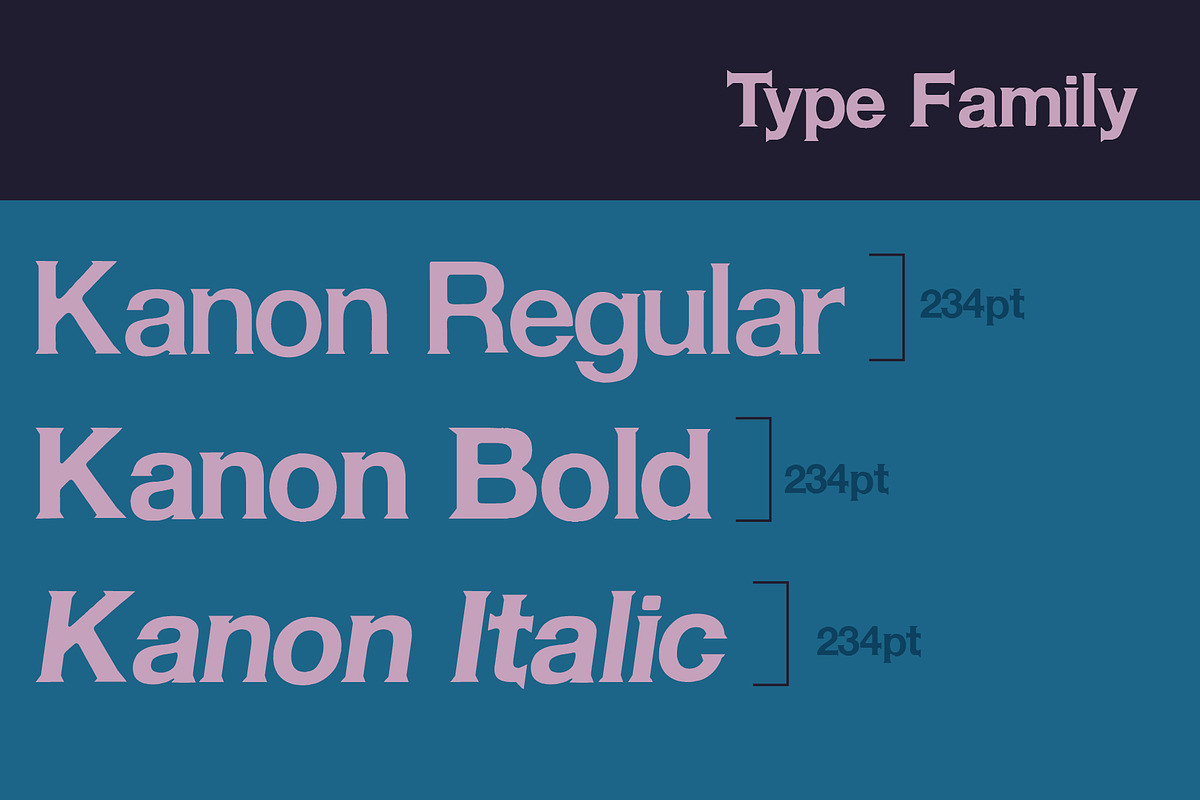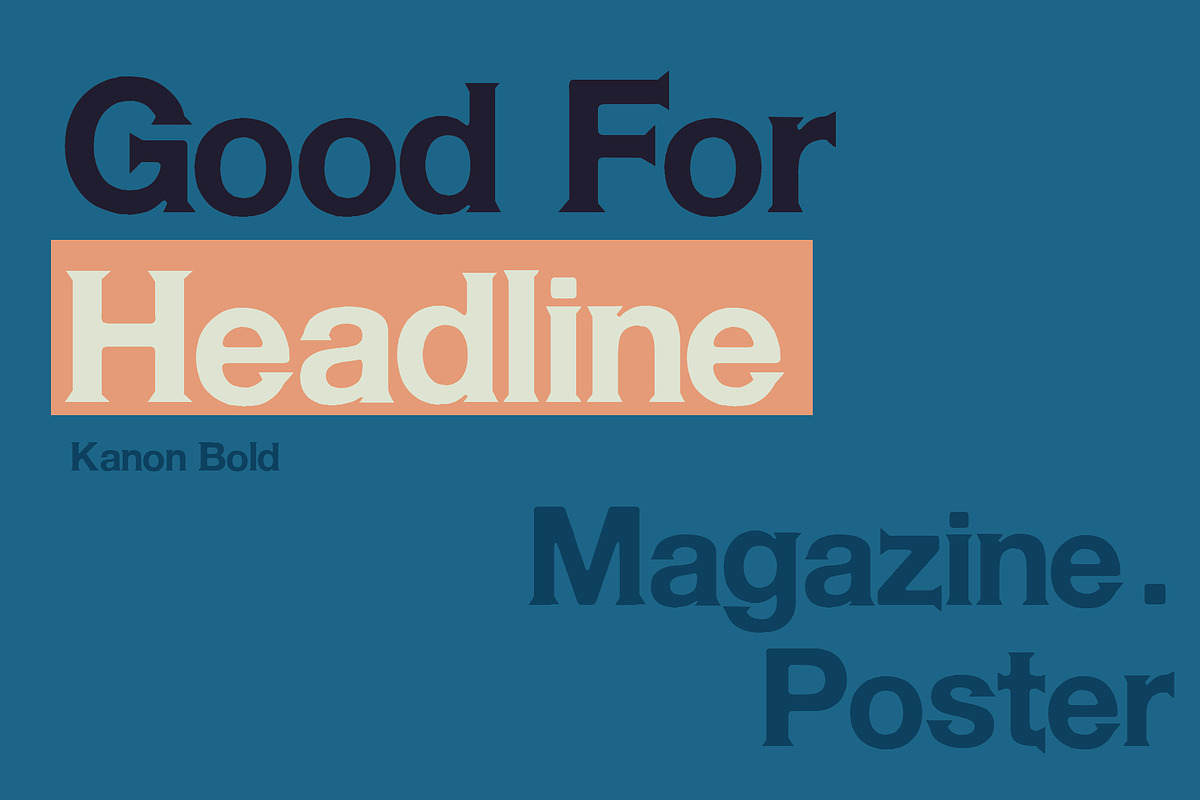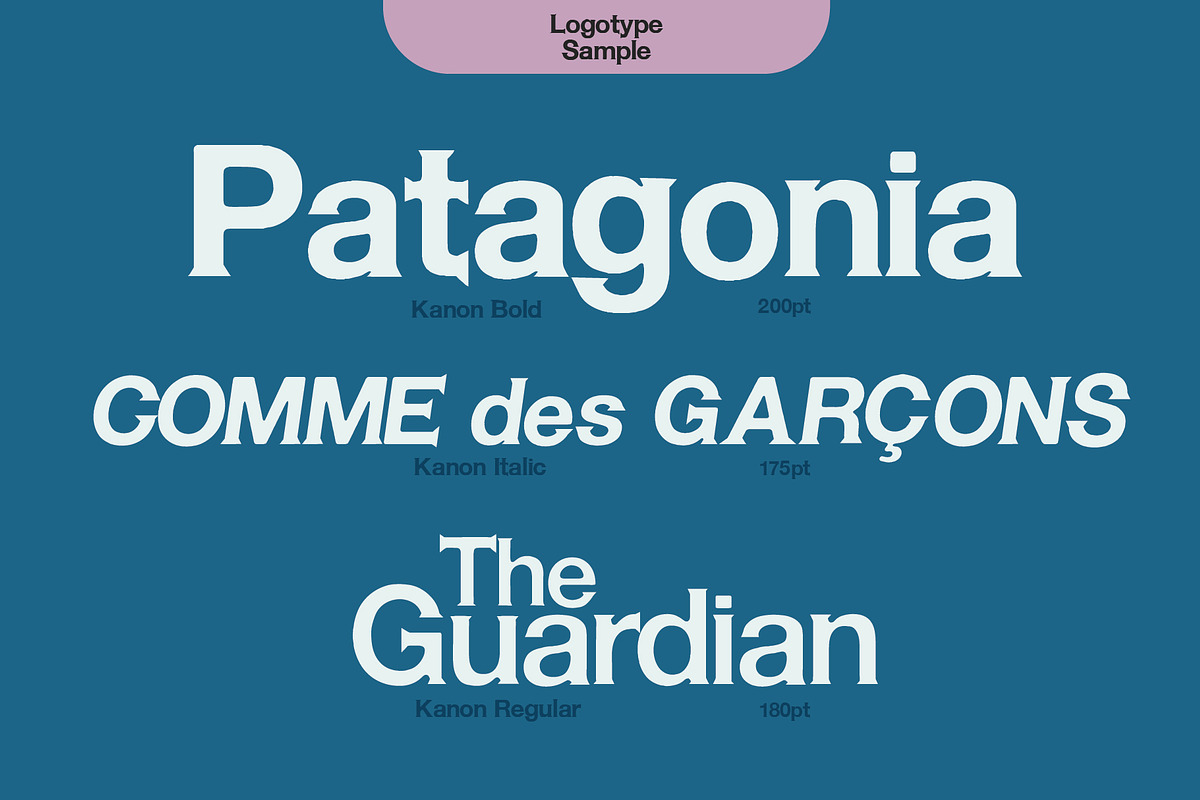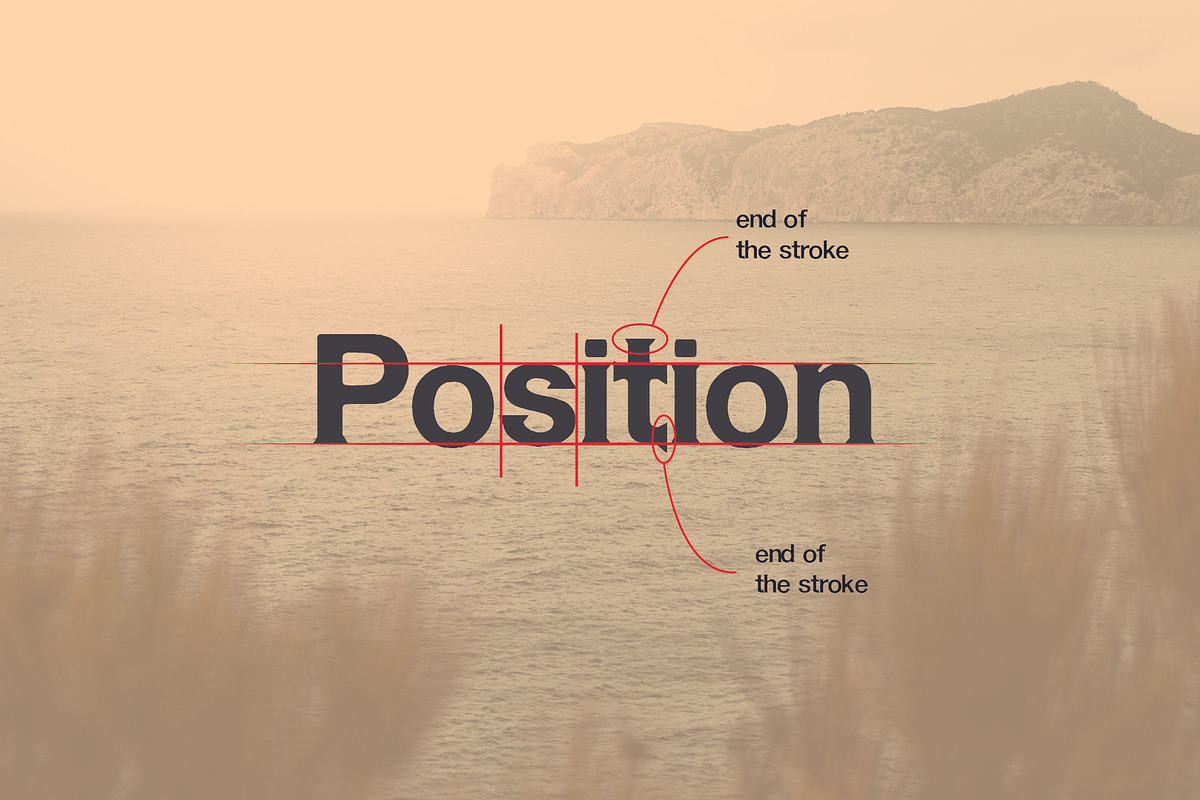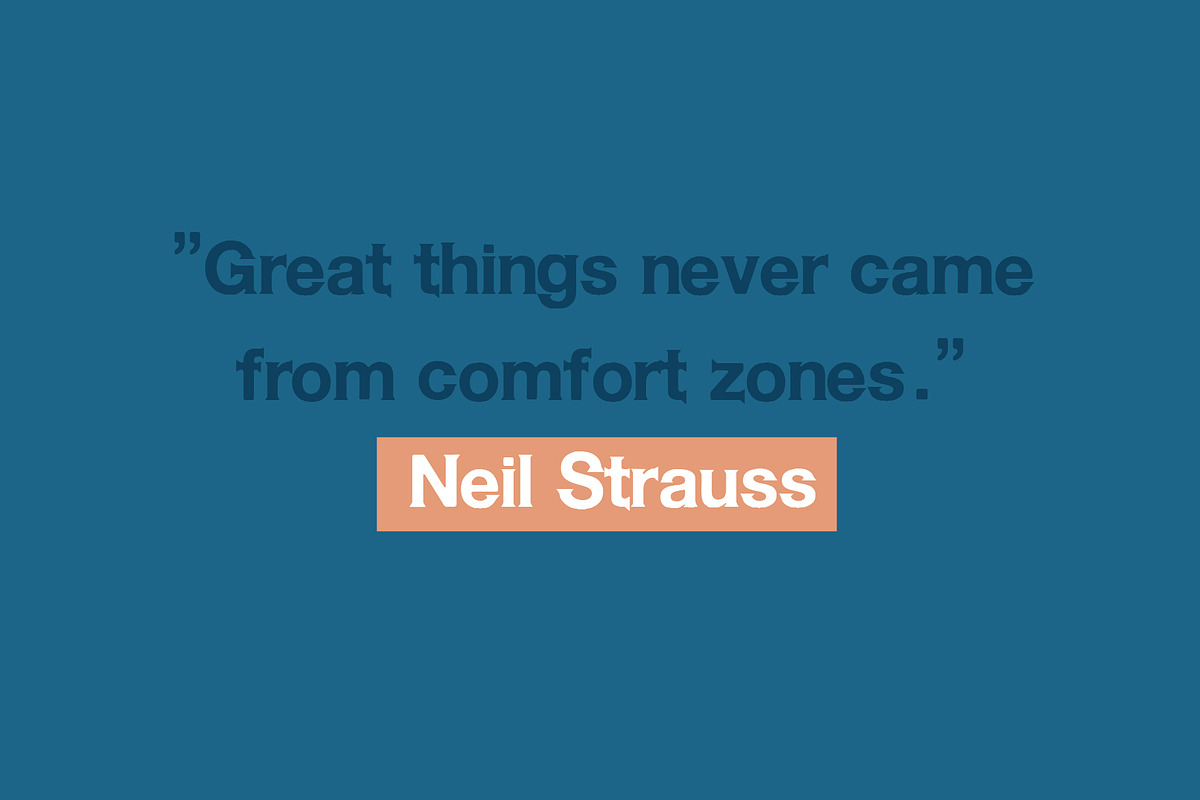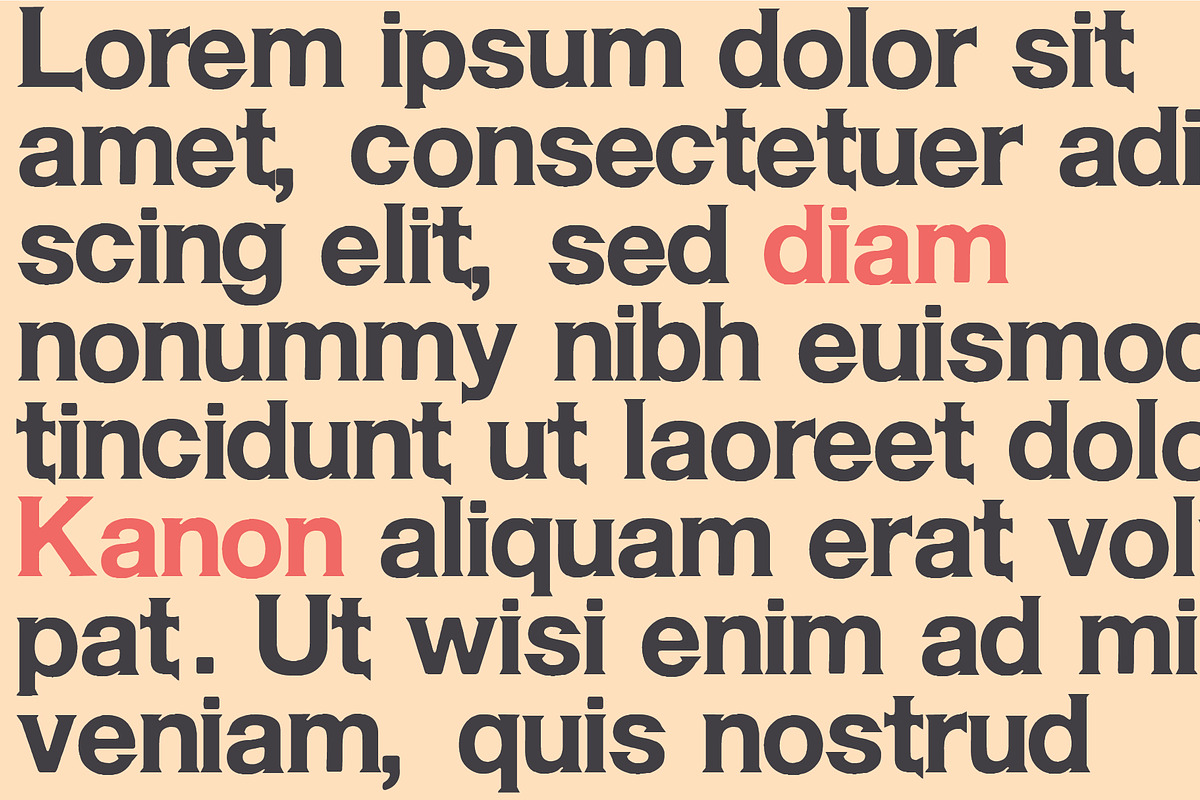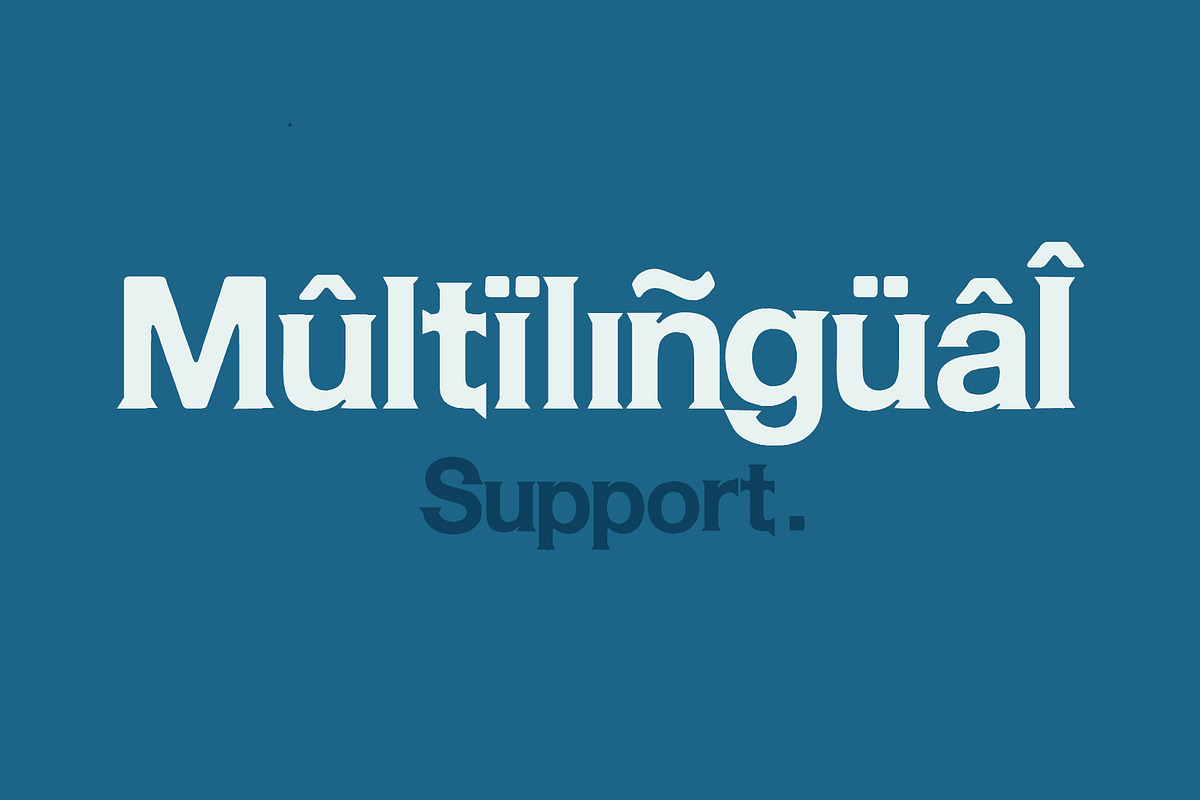
Kanon-Serif Font Family 20% OFF
Introducing New serif font family Kanon This font created for everyone and can use in everything you want. Luxury and Classic serif make you feel comfortable to see .
Font can be used in :
- Kanon Bold
- Kanon Reguler
- Kanon Italic
Kanon-Serif Font Family 20% OFF by ulndsgn fits naturally into Branding, posters, packaging, typography.